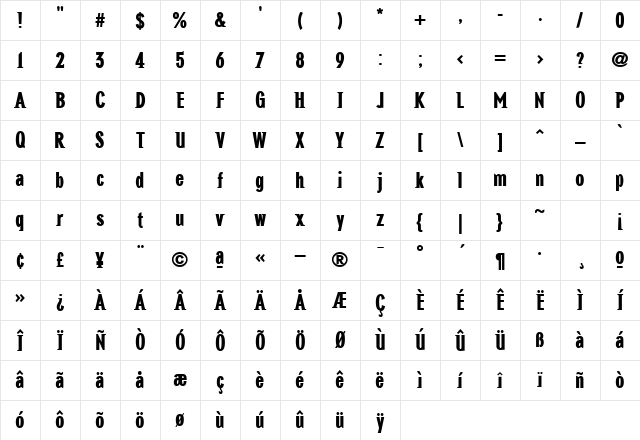
NewGlobalHeavy Regular
Design Context for NewGlobalHeavy
NewGlobalHeavy is a composed and adaptable typeface that performs quietly and consistently across a wide range of design contexts.
Pro Tip: Use NewGlobalHeavy in both headline and body roles to test its range before committing to a single application.